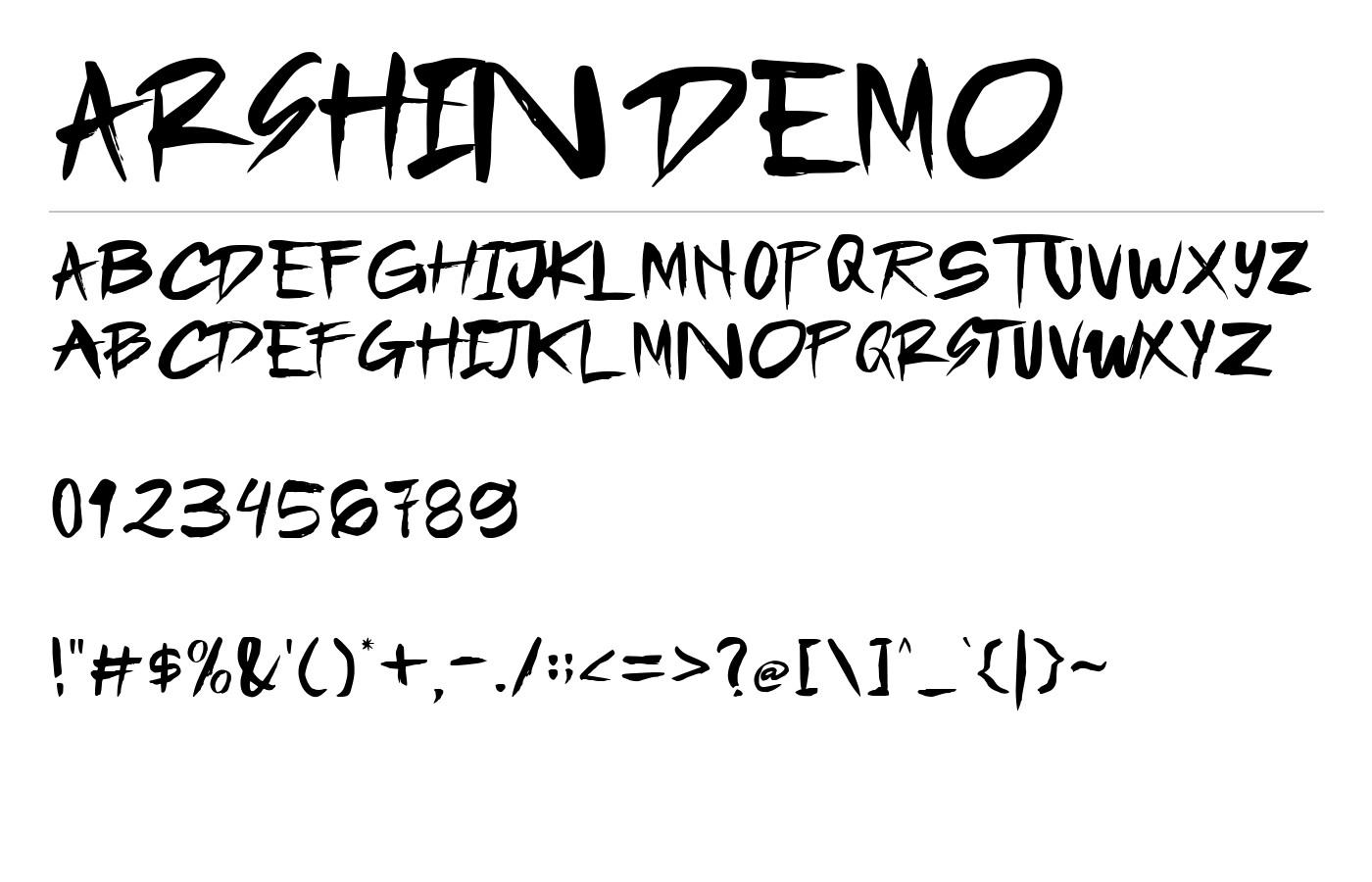
Arshin Demo is a bold, expressive handwritten font with a dynamic and rough brushstroke style that gives it an energetic and edgy personality. Its irregular shapes and sharp strokes make it ideal for creative projects, posters, and branding that seek a raw, artistic, or rebellious vibe. This font works best in headlines and display uses where impact and individuality are key.
Arshin Demo Font
About Arshin Demo Font
| Font family | Arshin Demo Font |
| Designer | Suandana Ipandemade |